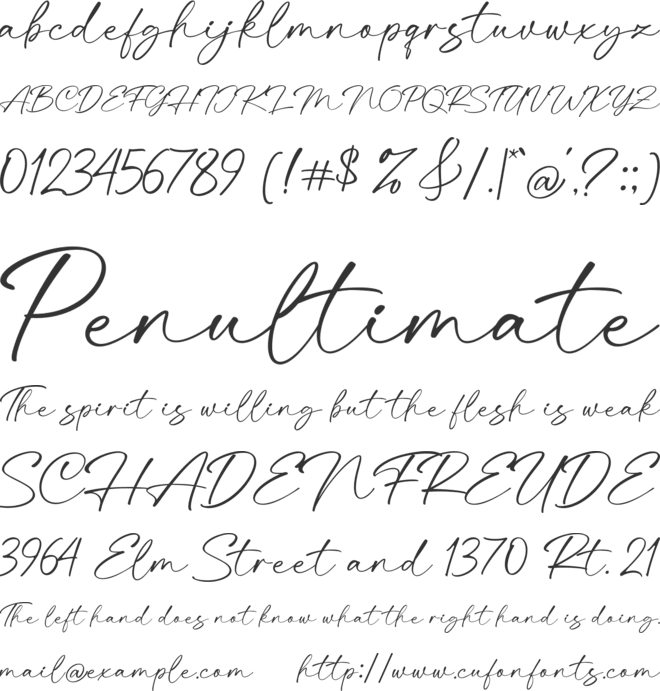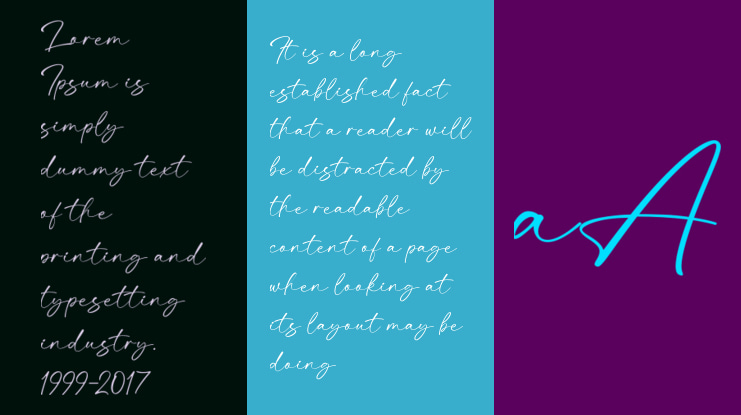
Dialtones Font
Dialtones – Casual Handwritten Font
crafted with authentic Brush for Natural & Casual touch for everything from branding and social media to invitations and packaging
Dialtones font preview